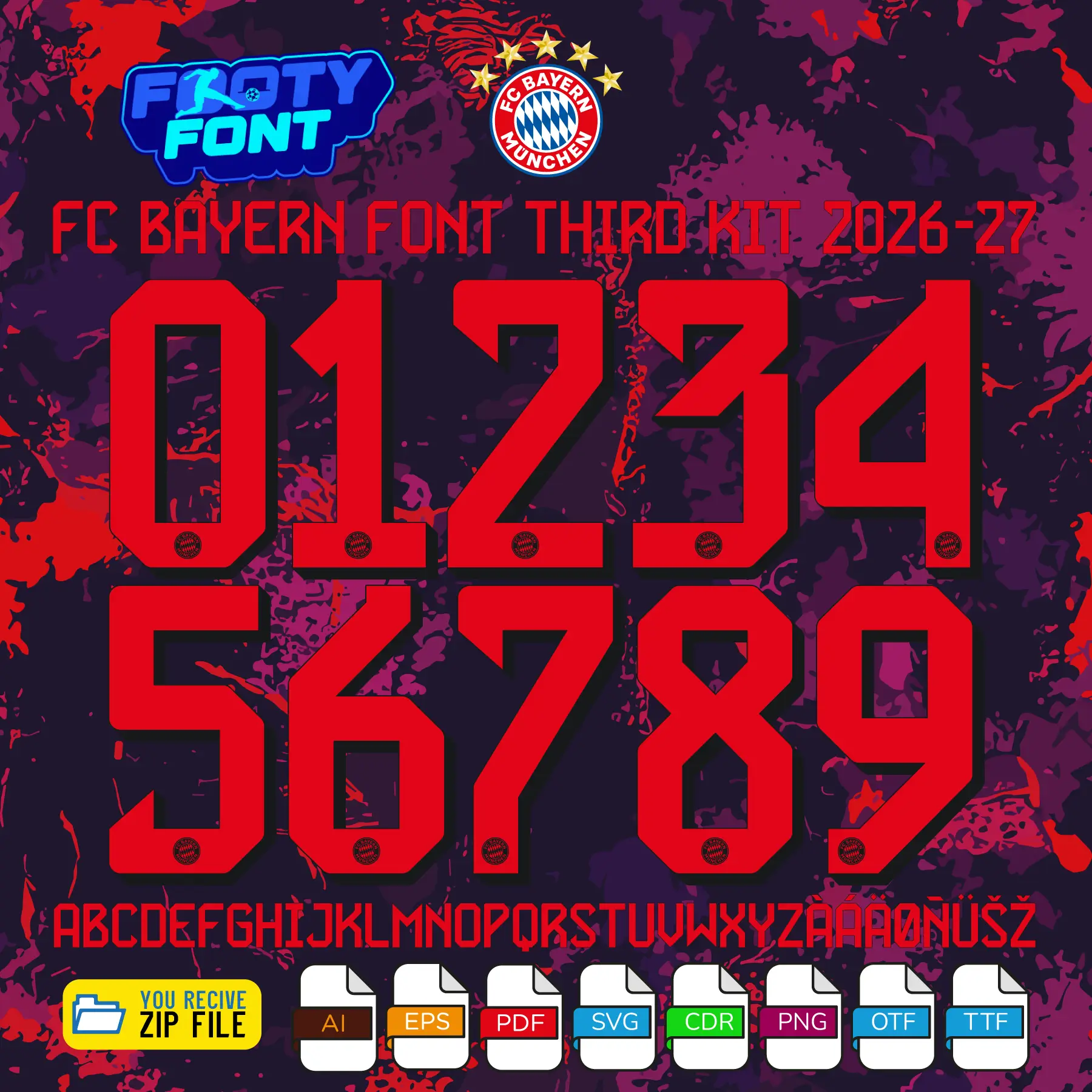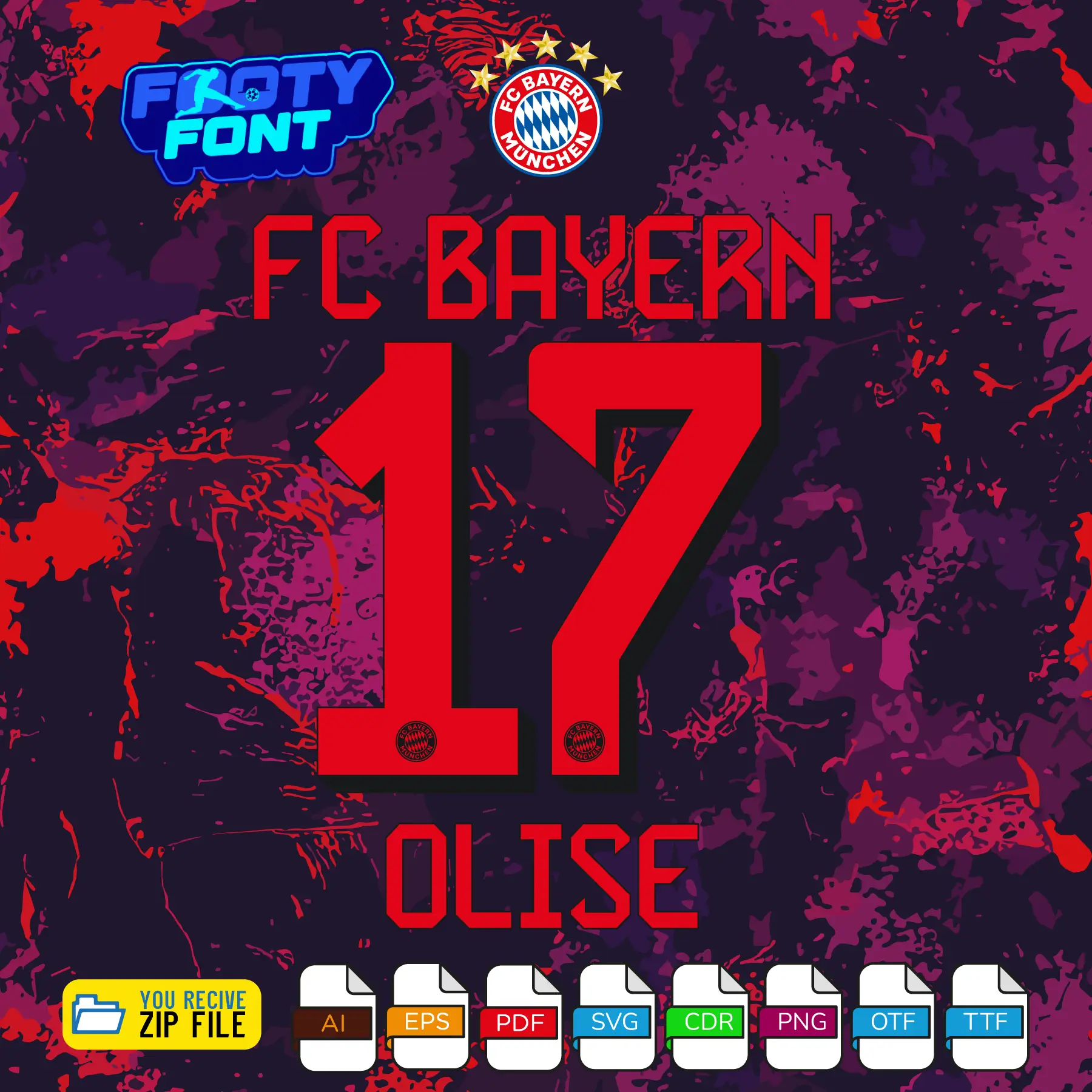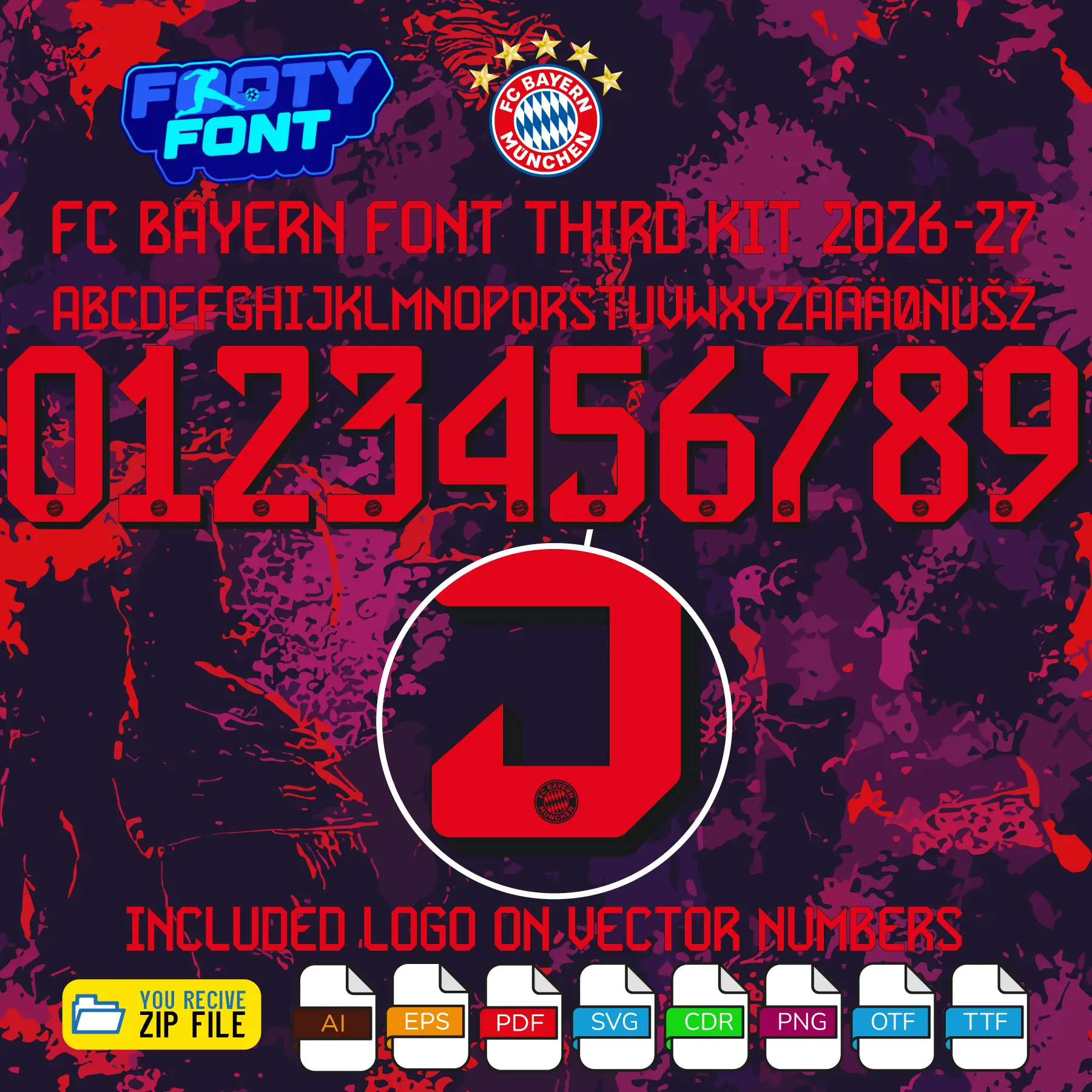
FC Bayern Munich 2026-27 Football Font
Bring bold Bavarian style to your creative projects with this font football, inspired by the FC Bayern Munich 2026-27 third kit typography. Meticulously recreated to match the club’s European like UCL and cup alternate look, this typeface features striking, energetic solar red / rust-red geometric numbers paired with sharp black drop shadows and accents. It perfectly complements the club’s dramatic navy-purple and ink-splatter abstract third jersey honoring historic European and global club moments.
This font captures the elite style worn on the pitch by global superstars and attacking talents like Michael Olise, Harry Kane, and Jamal Musiala. Whether you are crafting personalized football shirts, custom matchday graphics, digital artwork, or apparel, this vector font kit delivers match-grade precision.